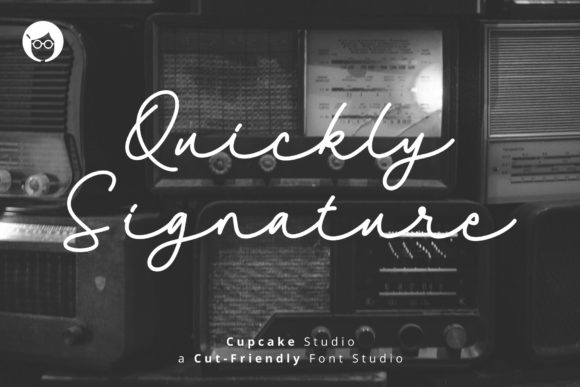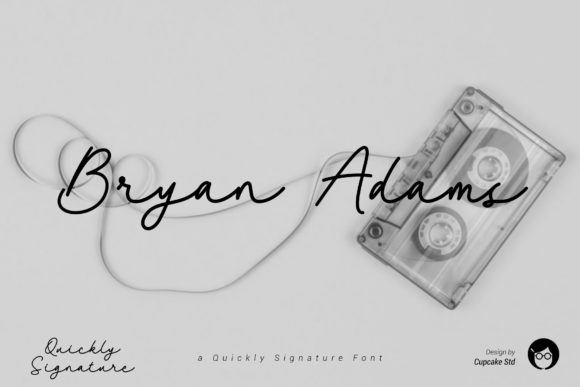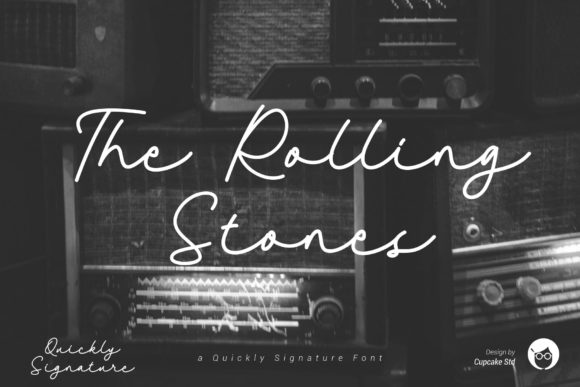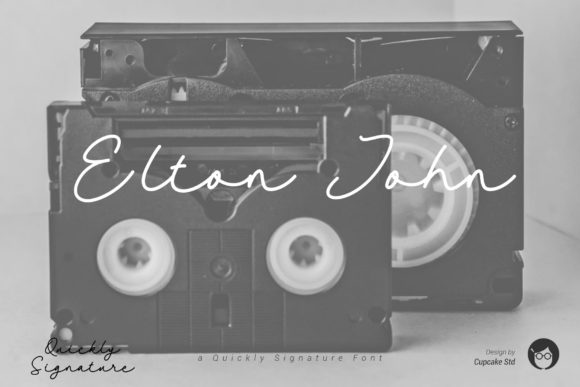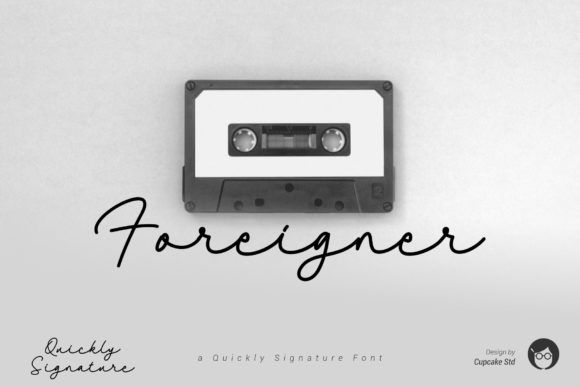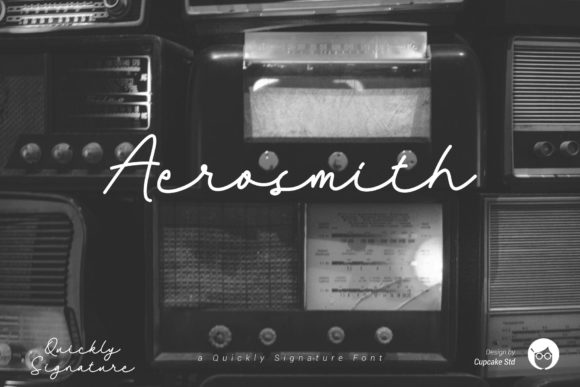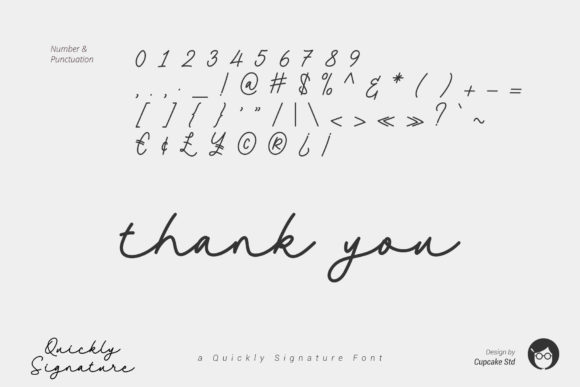
AL Quickly Signature Font
About AL Quickly Signature Font
Quickly Signature is a magical handwritten font carefully created with a touch of elegance. This is a beautiful combination of timeless elegance and authentic calligraphy. It features an incredibly classic style, while still keeping a friendly feel. Quickly Signature is the perfect font for making original and outstanding designs.